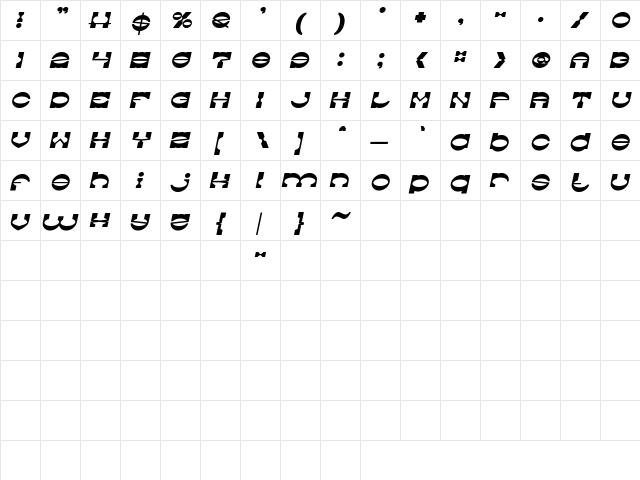
The Machine Gun Bold Italic
Design Context for The Machine Gun Typeface
The Machine Gun is a composed and adaptable typeface that performs quietly and consistently across a wide range of design contexts. Its italic angle brings a sense of urgency and motion to the letterforms. Its bold stroke weight gives it real presence on the page.
Pro Tip: Use The Machine Gun for emphasis, pull quotes, and subheadings where its slanted energy can add rhythm to the layout.